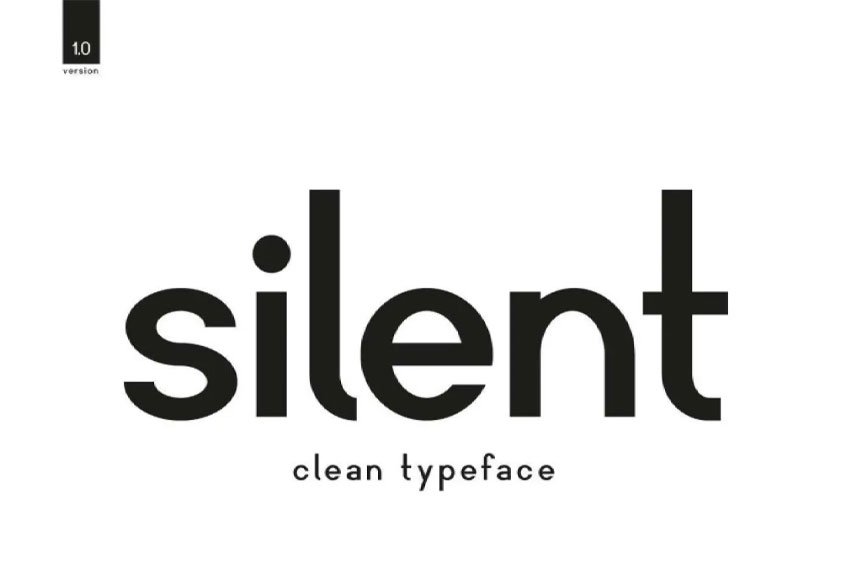
Silent Font is an attractive modern sans serif font with a casual aesthetics, featuring sophisticated modern, sleek minimalism, and effortless ease.
Perfect for branding projects such as logos stationary business cards stationery flyer signage as well as signage flyers brochures etc, the aesthetics of Silent Font lend itself well to many projects such as branding logos stationary business cards stationery flyer etc.